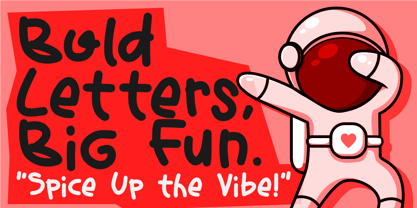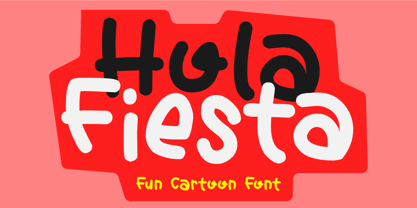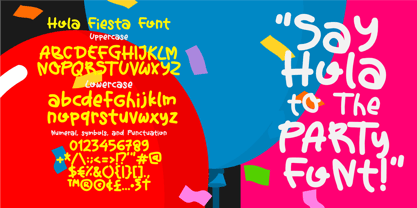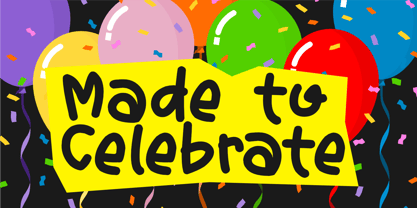
Hola Fiesta
by Epiclinez
The Hola Fiesta Font Family was designed by Aldy Sidik and published by Epiclinez. Hola Fiesta contains 1 styles.
Hola Fiesta is a bold and cheerful font that instantly adds fun to your designs. Inspired by playful logotypes, cute gaming titles, and friendly packaging, Hola features bouncy shapes and confident strokes that make your words pop!
This font is great for logos, product labels, social media posts, kids' games, party invites, and anything that needs a fun, happy touch. Use it for posters, stickers, packaging, or branding — Hola brings joyful energy wherever it goes.